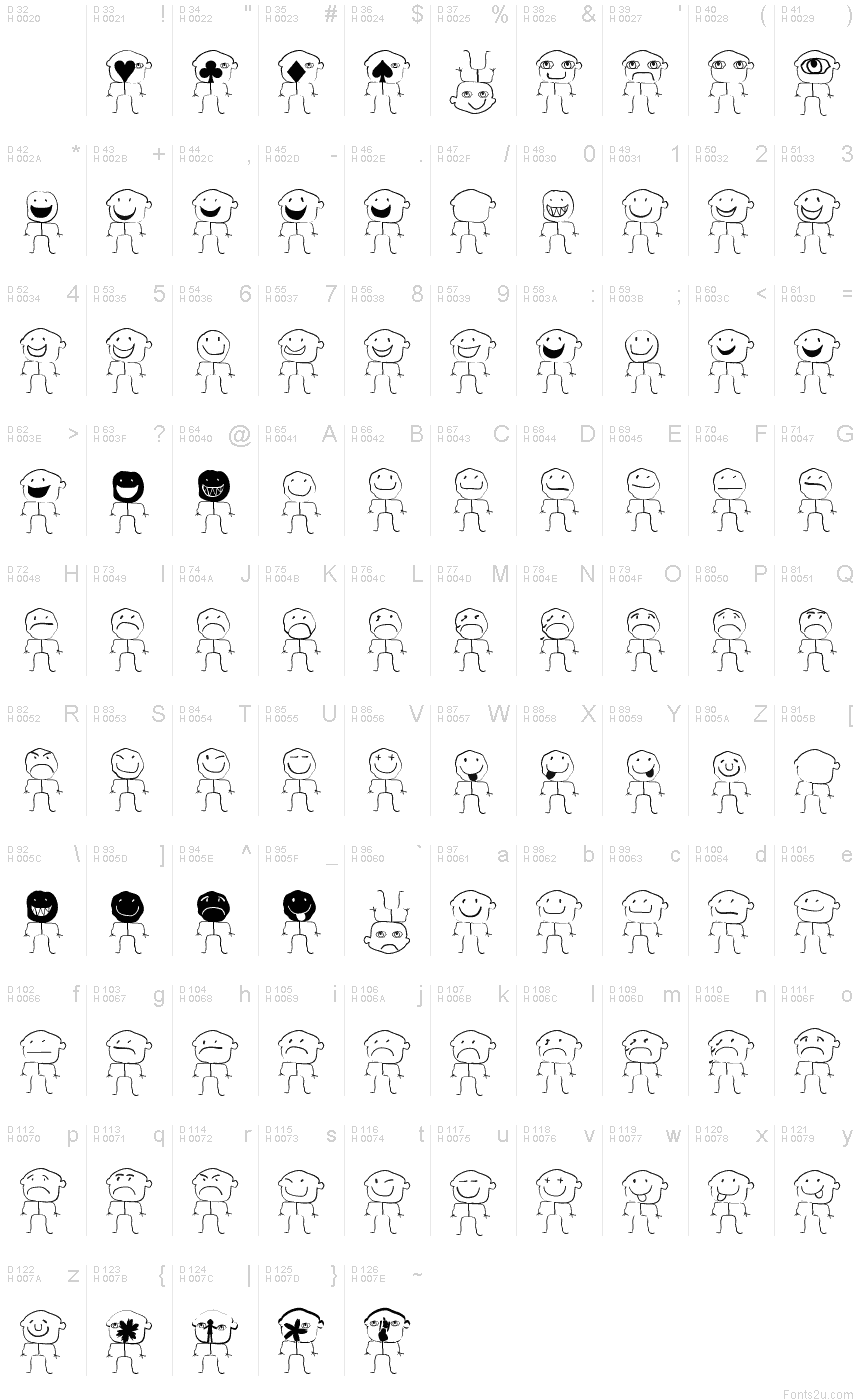
Sometimes Smiley by Manfred Klein is a free cartoon dingbat font of simple hand-drawn people with expressive faces. Uneven outlines, stick limbs, and shifting eyebrows or mouths make every figure resemble a quick notebook sketch.
Classroom materials and mental health graphics can use these figures to communicate feelings without lengthy text. They also suit children's activity sheets and casual event flyers. The changing facial expressions let each symbol become a tiny illustration rather than a neutral typographic mark.